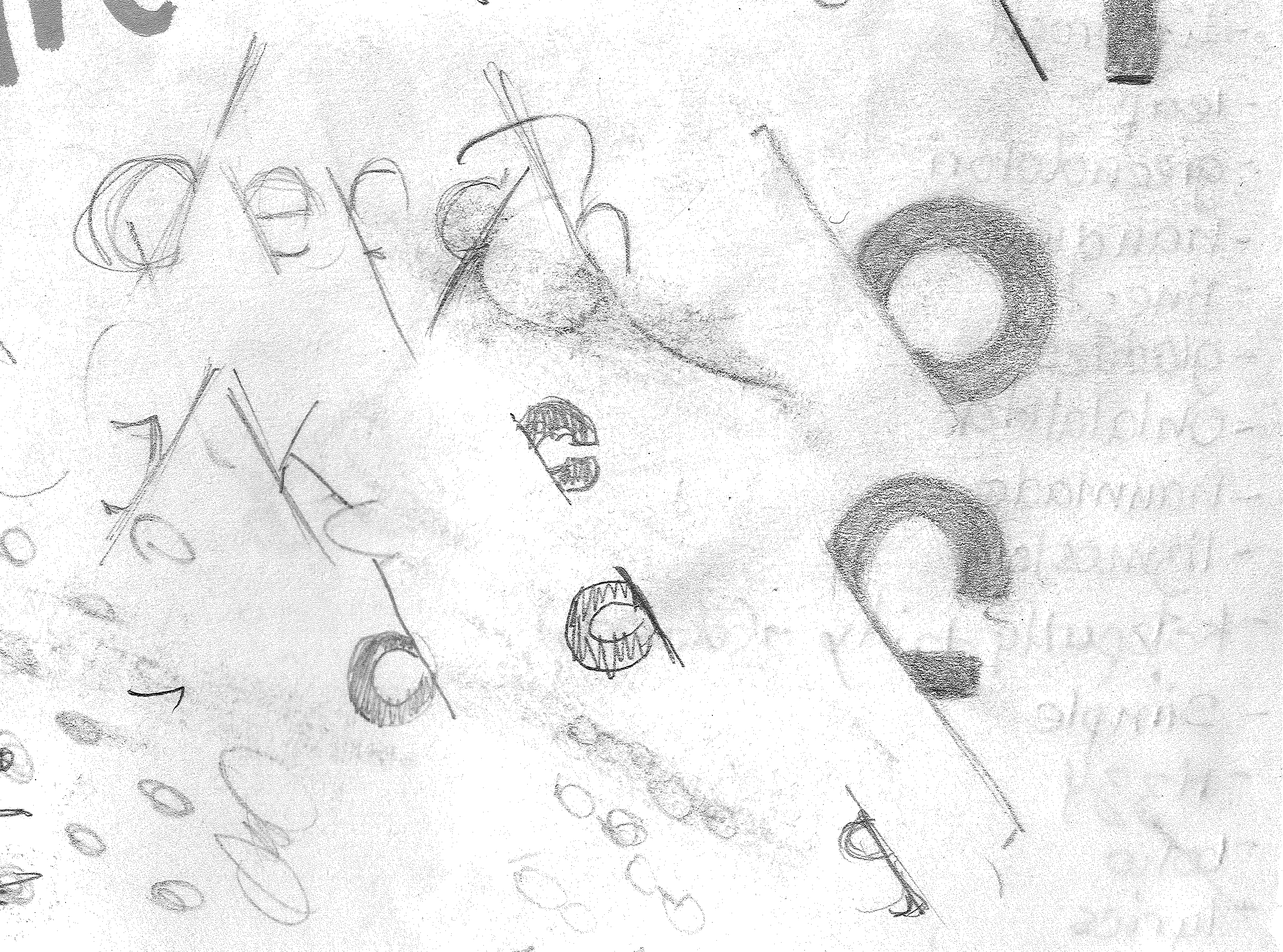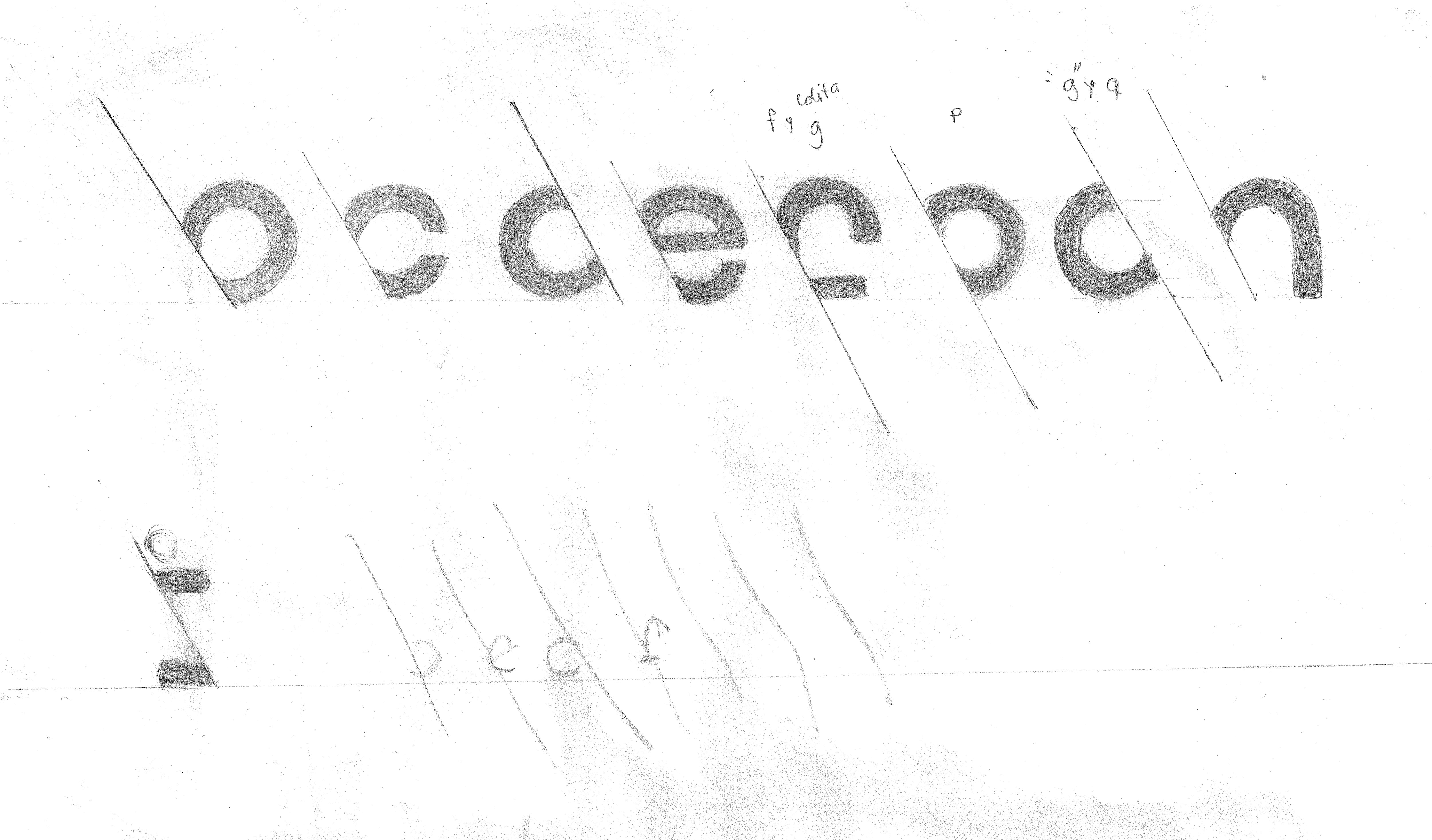
F37 Cinza
Hidden behind the diagonals of an unassuming sans serif is Grey Albornoz’s striking addition to the F37®× library.
Based on a neo-grotesque sans serif skeleton, F37 Cinza hides a dramatic personality. While Regular is clean and utilitarian, increase or decrease the weight and the font’s true personality is revealed. Each character is divided in half diagonally — and while one half gets bolder the other becomes lighter. This creates interestingly jagged text when the weight is close to Regular and beautifully dynamic text at each extreme weight. F37 Cinza is available in seven styles and the range of styles is versatile enough for vibrant headlines and legible body copy.
F37® × Grey Albornoz
The Designer
I am a Venezuelan designer currently based in Figueira da Foz, Portugal.
Born in the city of Guanare in Venezuela, at the age of 16 I moved to Caracas and graduated with a degree in Contemporary Dance. At that time I also wanted to study Graphic Design but I didn't have the economic resources to do it because the career was very expensive. However, destiny led me to marry a graphic designer - typographer who has taught me many basic things throughout the time we have been together. In 2020 when the pandemic had us all locked up there was an opportunity to do a certification in UX/UI from Google so I took it and that's when I started to pay more attention to typography and that led me to design my first font with the help of my husband. That happened at the end of 2020 when he decided to leave the type foundry where he worked to to be a freelancer, so we formed our own foundry called fragTYPE where I have gradually been able to develop my design skills making fonts and today one of them is part of the F37x collection.
Inspiration
F37 Cinza
Interview
Tell us about the inspiration behind your collaboration with F37®×. If it was an unused concept, what was the potential use case for it.
Cinza is an original concept that came from the idea of making a font that was hidden behind a diagonal. During the development process I realised that the shape of some of the letters was lost and it was very difficult to distinguish them. Then it occurred to me to modify it with this variable font in which there was a change of weights but with a twist, the change is done in reverse defined by the axis of the diagonal, so that the font always had an intermediate point in which it could work as the common geometric one. As for the uses, the truth is that I always thought of it as a display font that could be used on record covers or titles, but during the process I discovered that it worked very well as a decorative font for signage.
When starting the process of creating your font, what typographic conventions did you look to break or experiment with? Or were there conventions of functionality you championed?
To be honest my references are very few but I like geometric fonts especially in their lighter weights, so that was my starting point. The typographic convention I broke with the Cinza design was the way the weight change works in the font as long as it didn't break the legibility which was what I was most interested in preserving. It's not a reading font, but I wanted it to be readable.
Now that your typeface has launched, what would be your dream project to use your F37® typeface on?
Definitely on a larger scale, as I answered earlier, I discovered that used as a decorative and expressive font for building signage it does look really really good. So I think my dream project could be something like that.
What have you learnt through developing and creating your own typeface(s) with our F37® type designers?
The biggest learning I had was that sometimes the original design may not work in the development stage and that it is important to be able to make the necessary changes or modifications to make the idea work without losing its essence or the original concept.
How would you describe your typeface in three words?
Transformable, adaptable, whimsical.